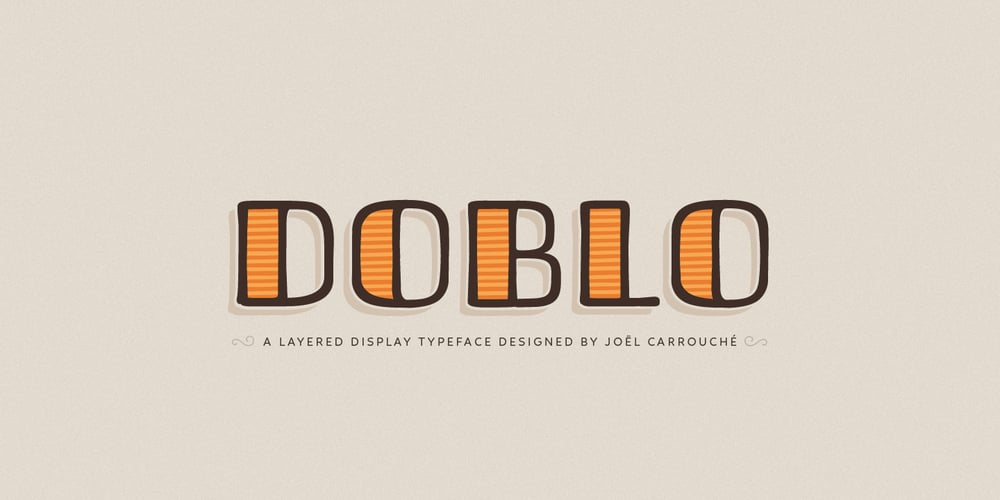
Doblo Font Family was designed by Joël Carrouché and published by JCFonts. Doblo contains 10 styles and family package options. Doblo is a colorful and slightly retro layered type family designed by Joël Carrouché. Consisting of one master character, 8 different layers and a collection of extra ornaments, this fancy family allows several creative combinations and produces unique results. The fonts are delivered in OpenType format and include diacritics for most western & central European languages.